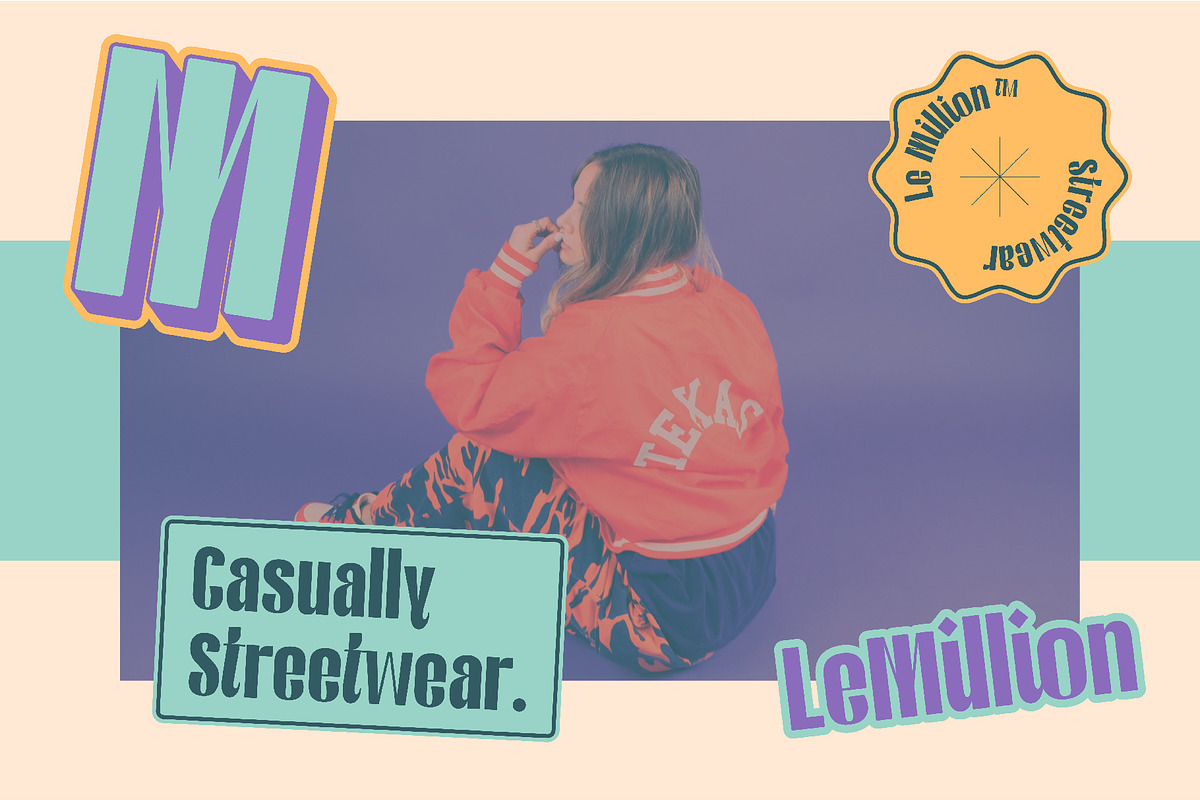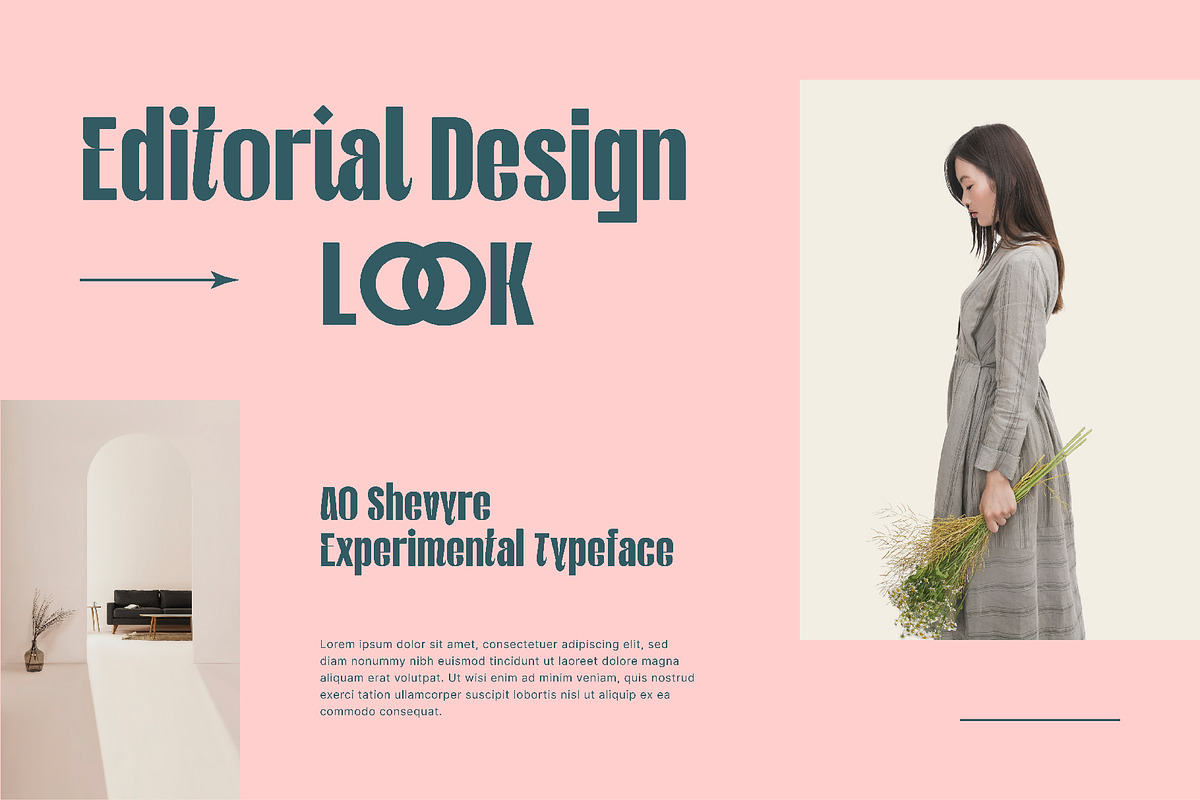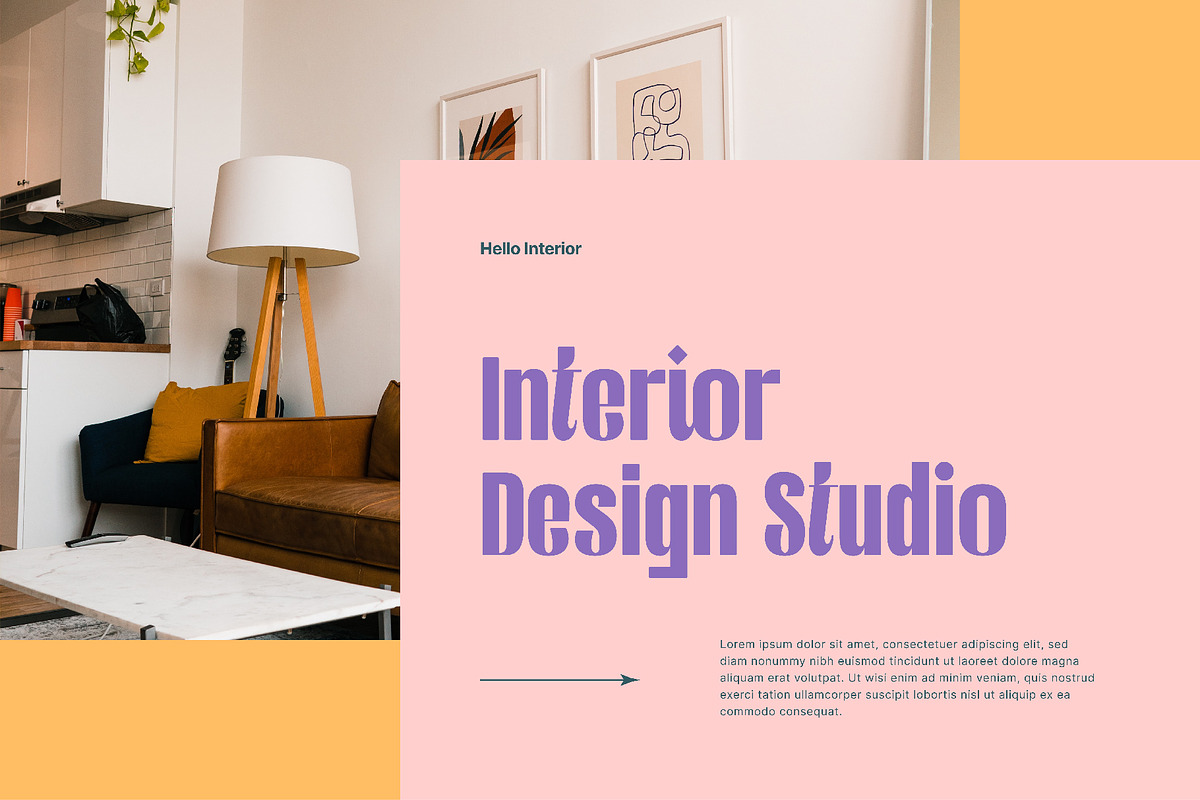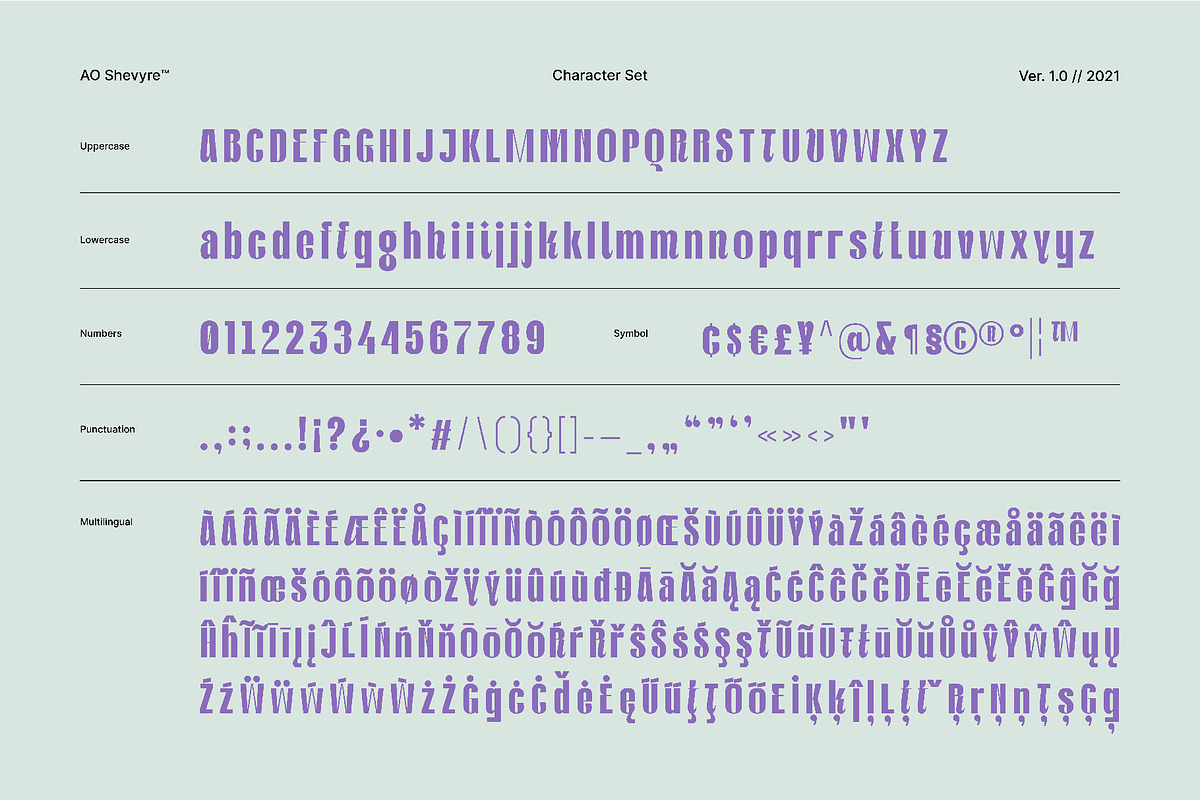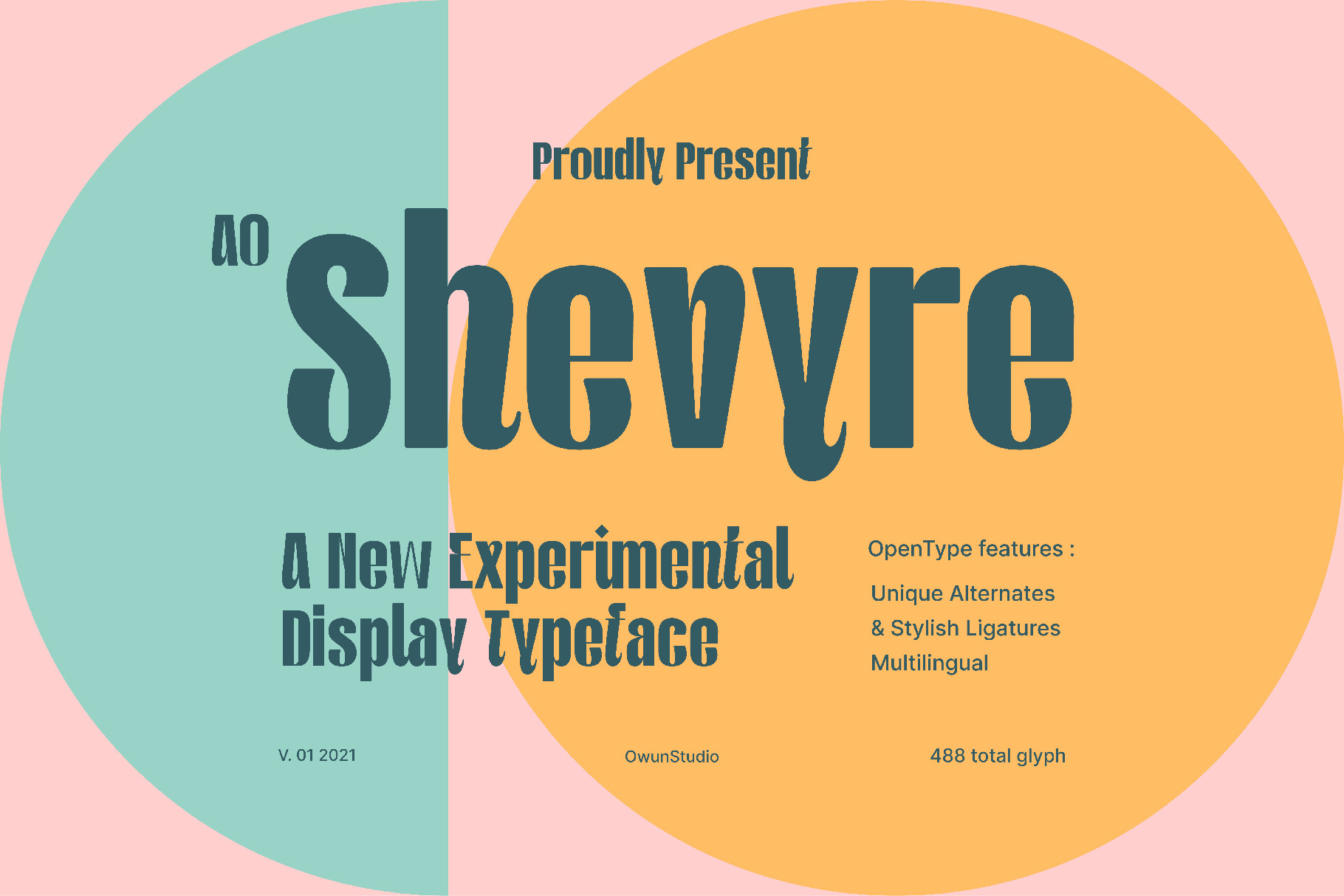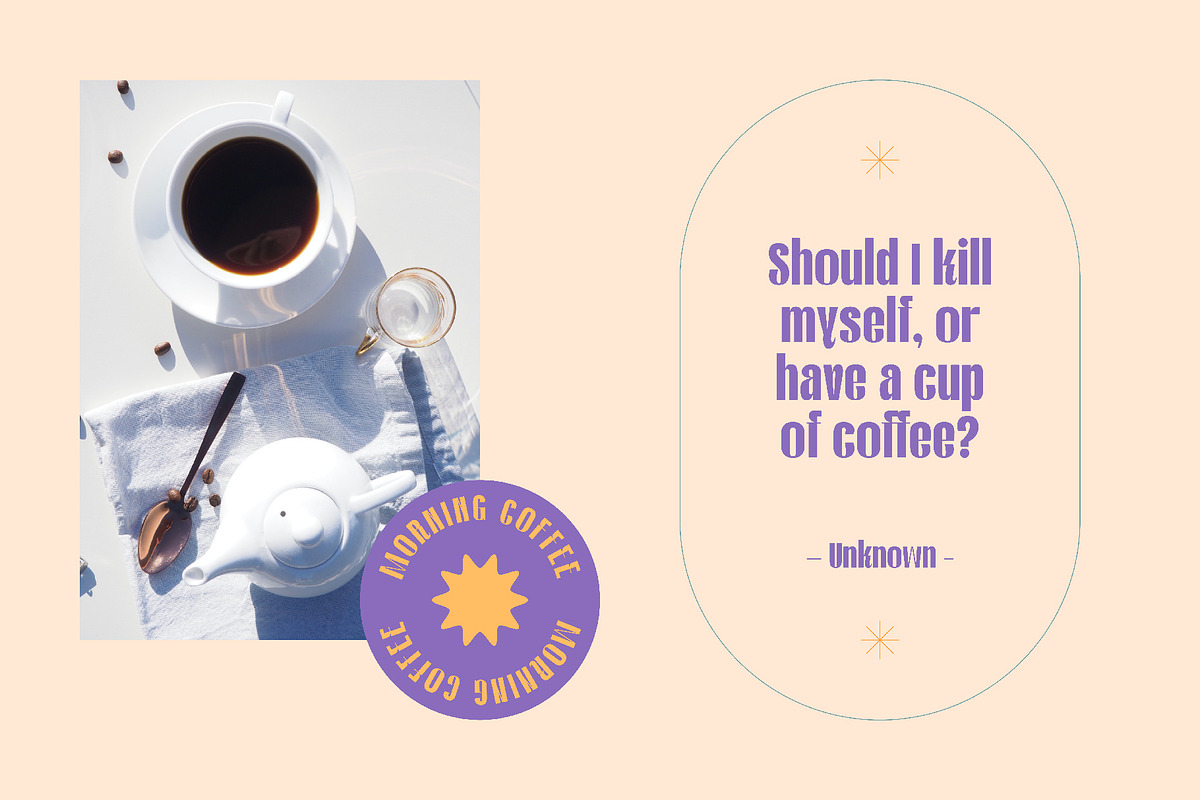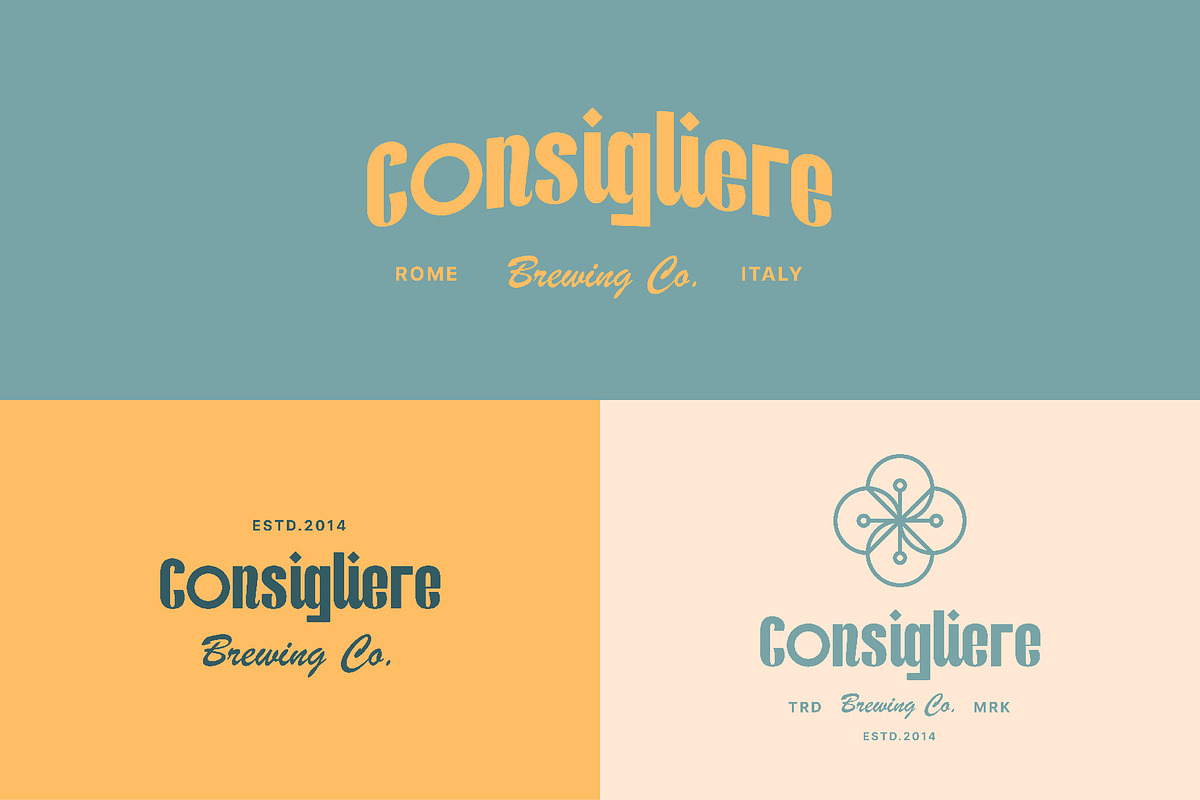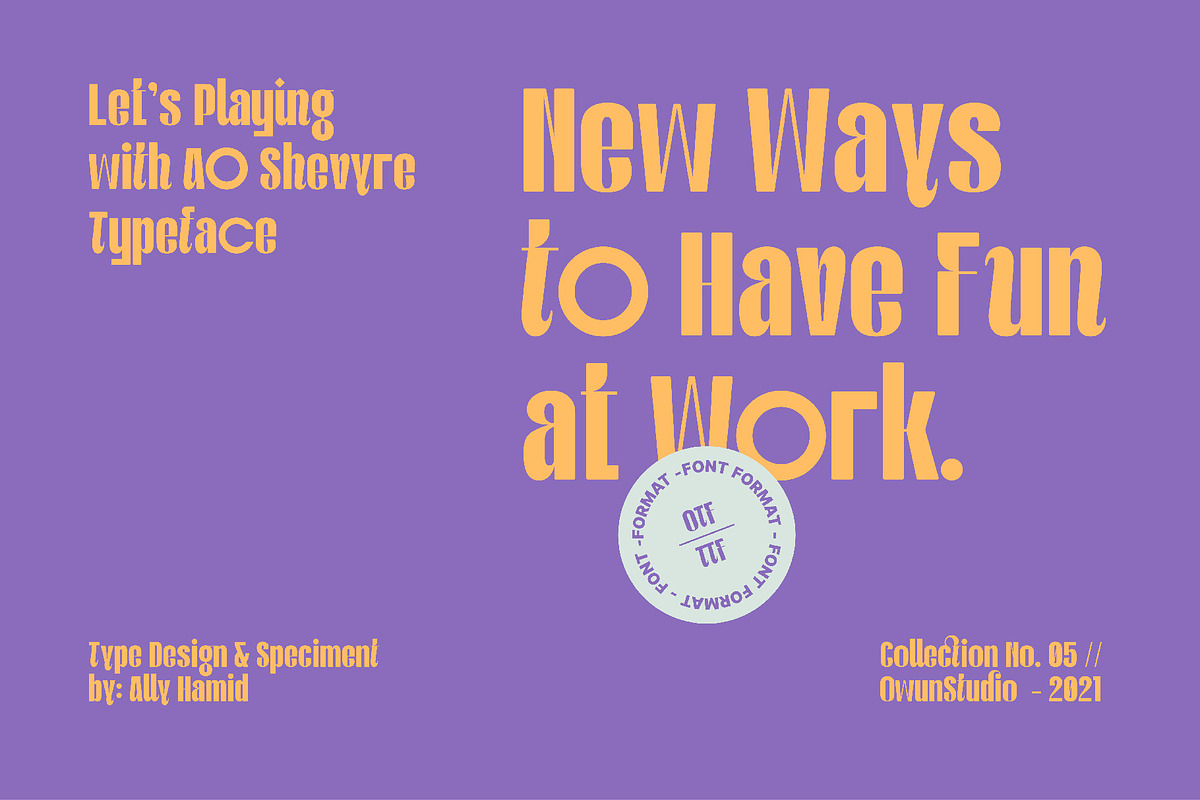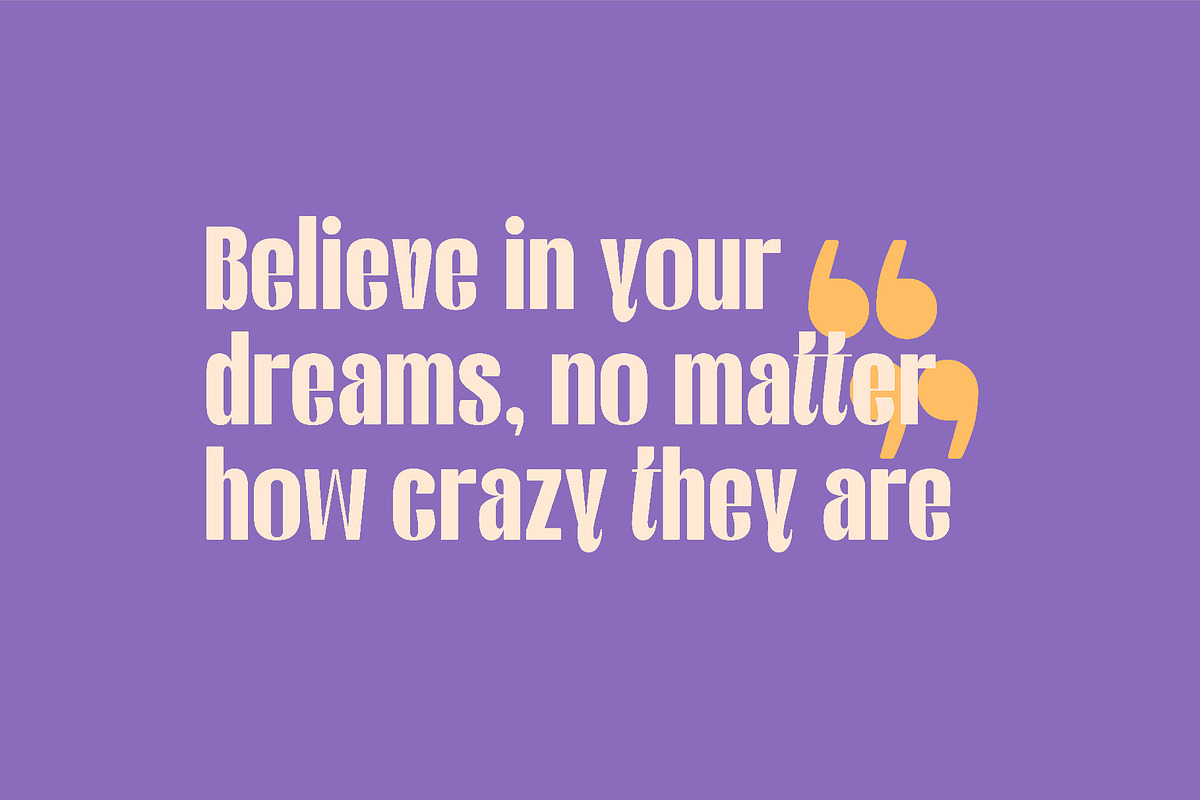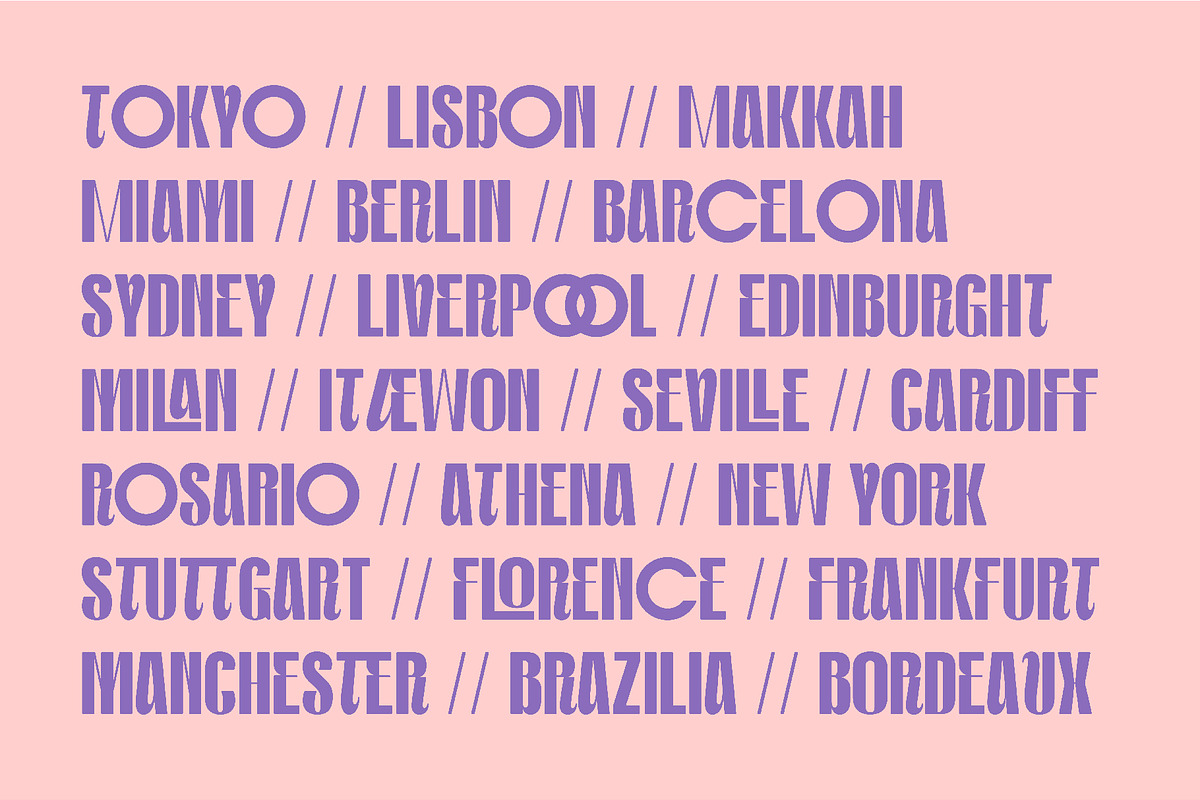
AO Shevyre - Display typeface
AO Shevyre is chunky and bold typeface with urban soft touch. Perfect for branding, big headlines both commercial or print. with ligatures and alternates features, makes your project looks more stylish and impactful designs.